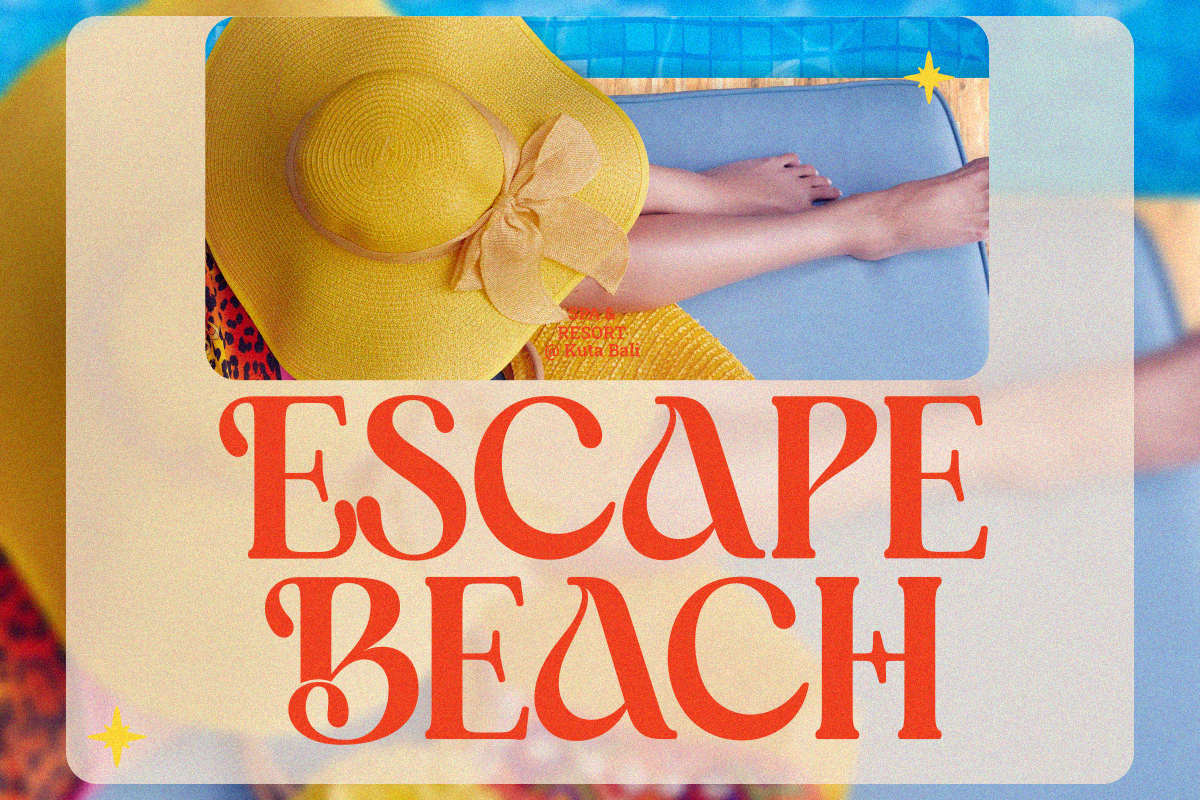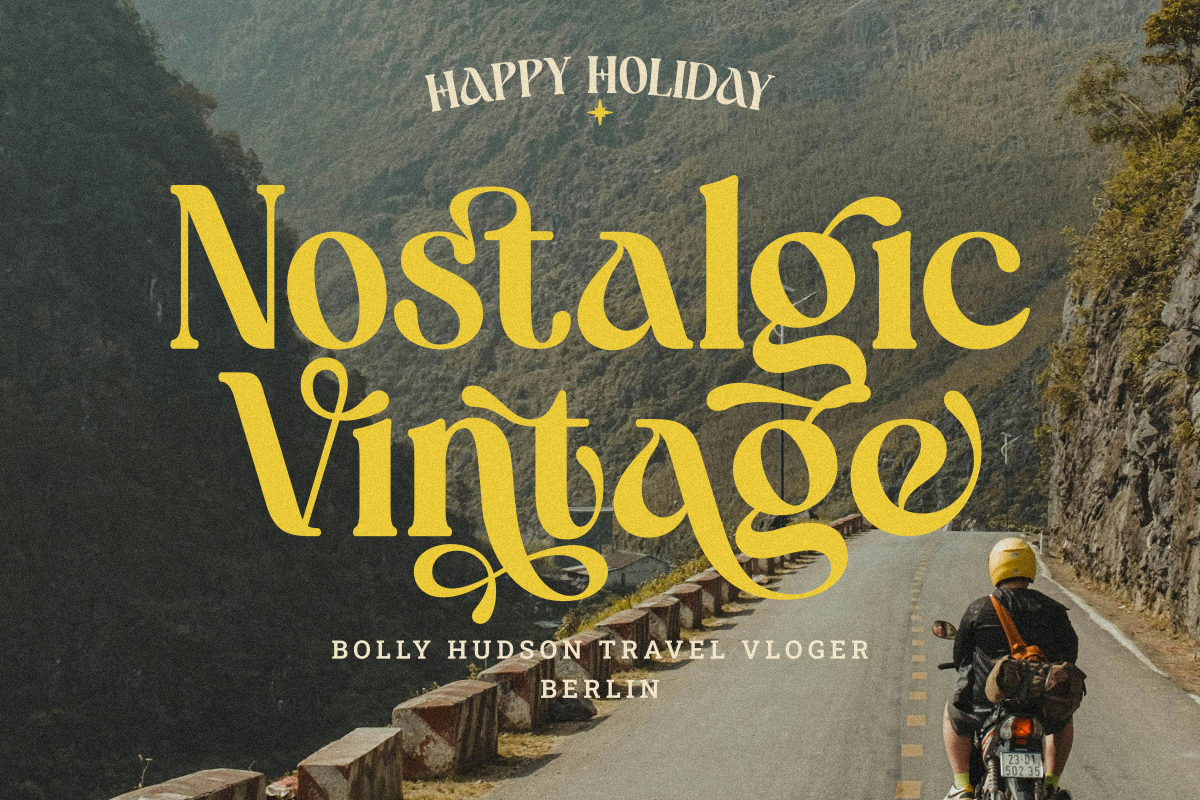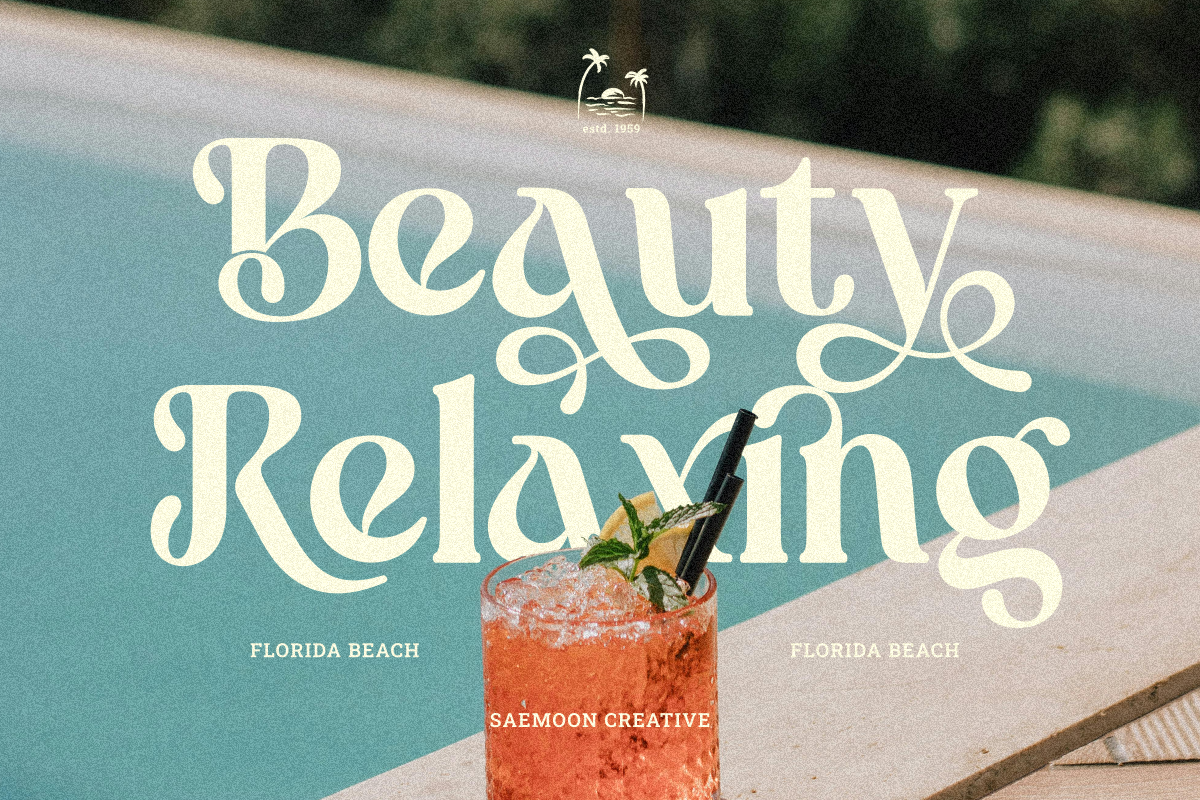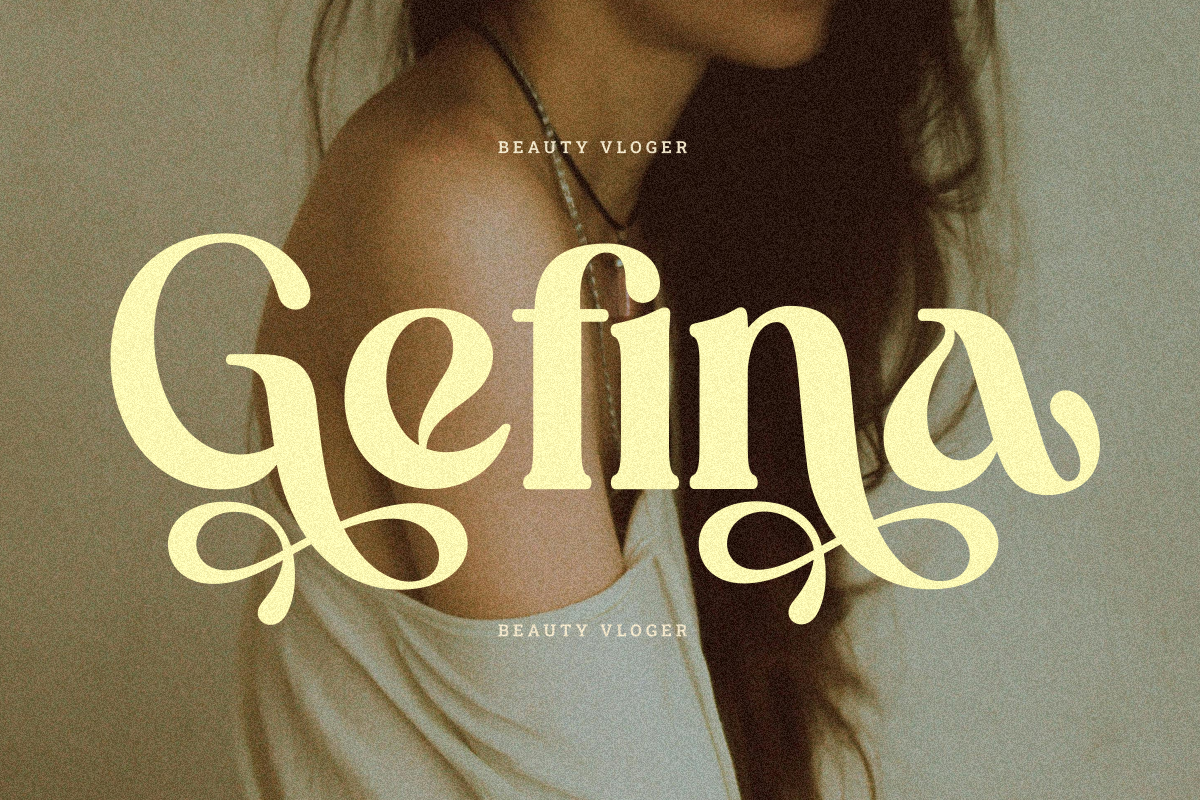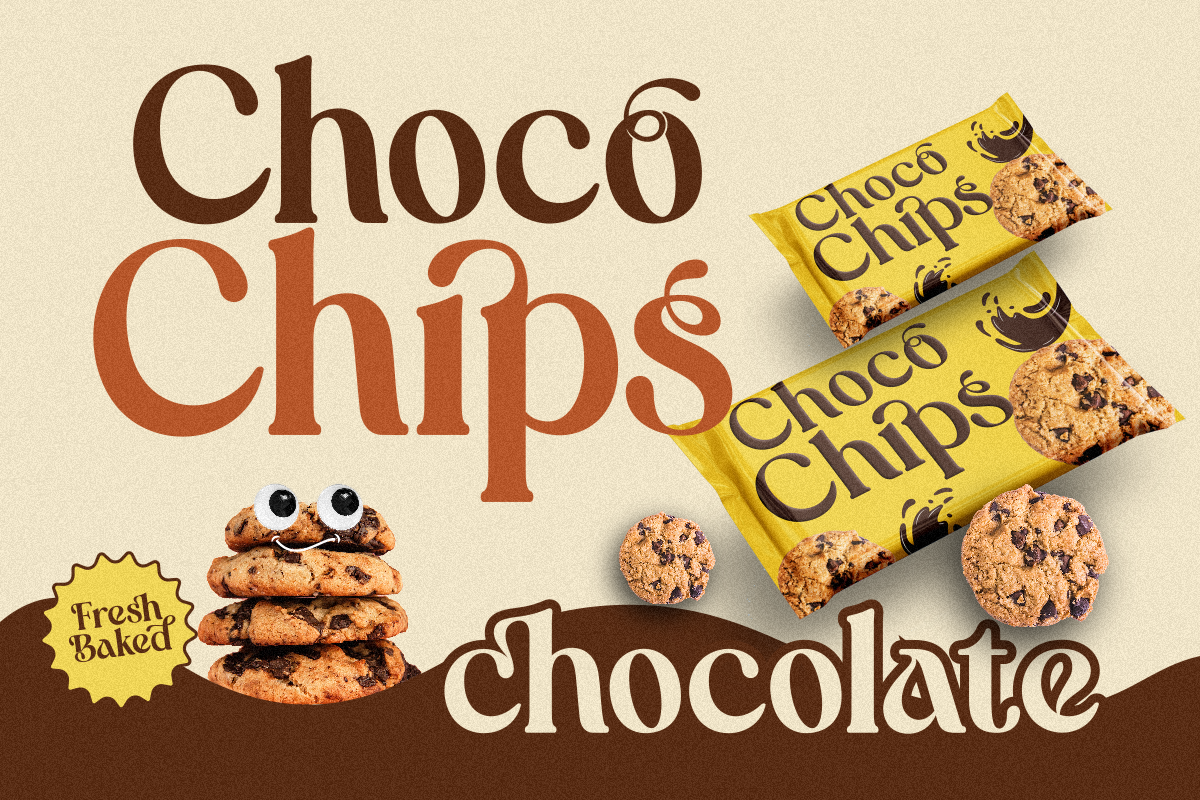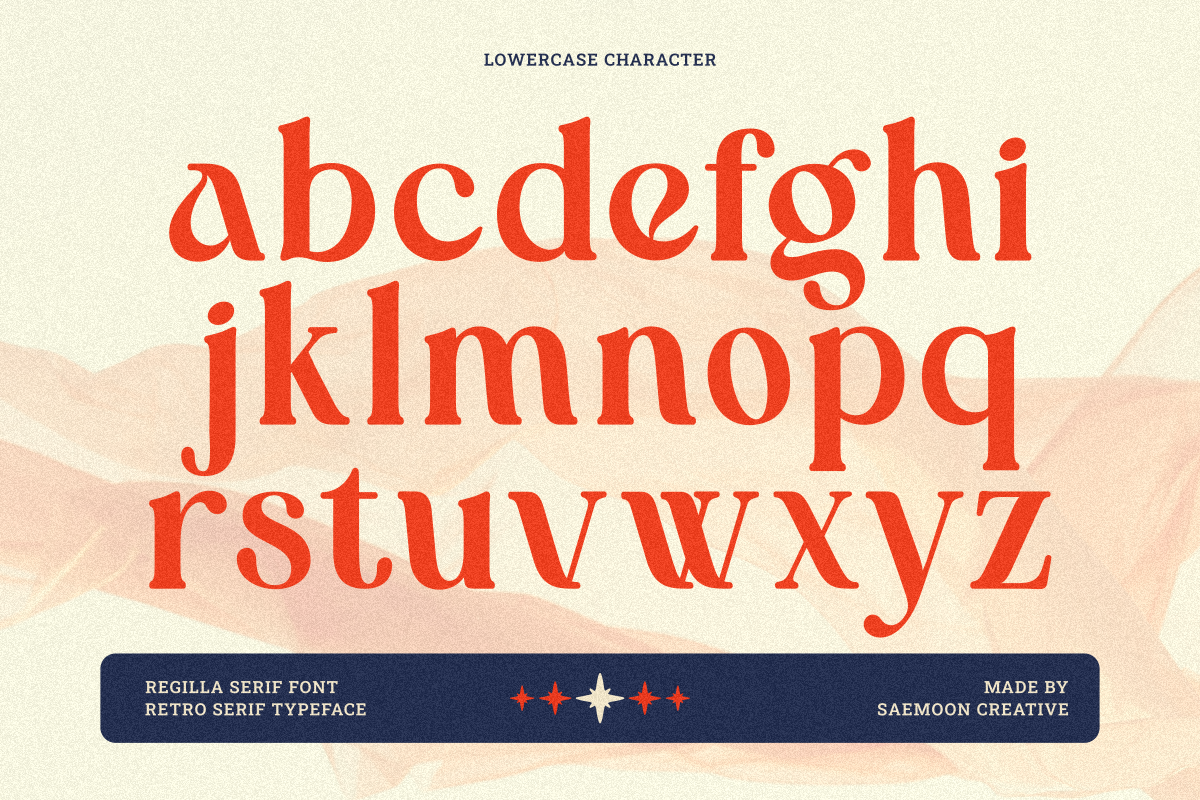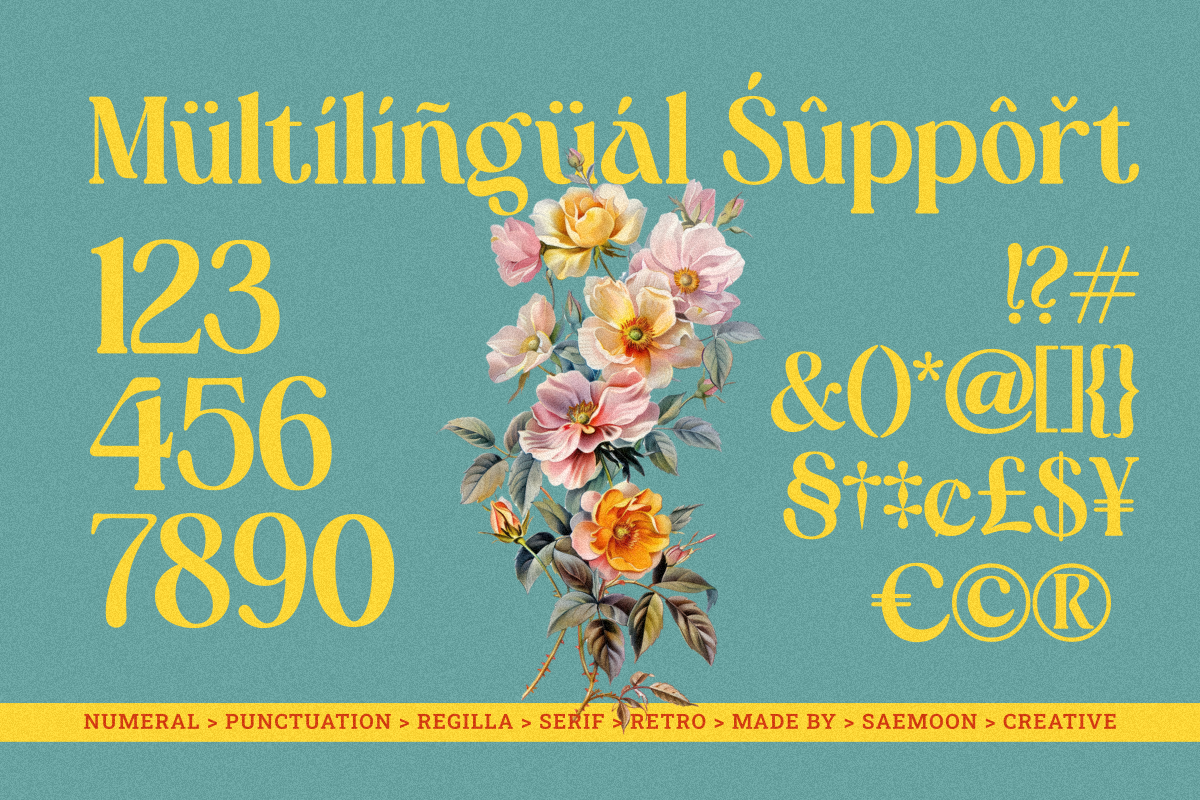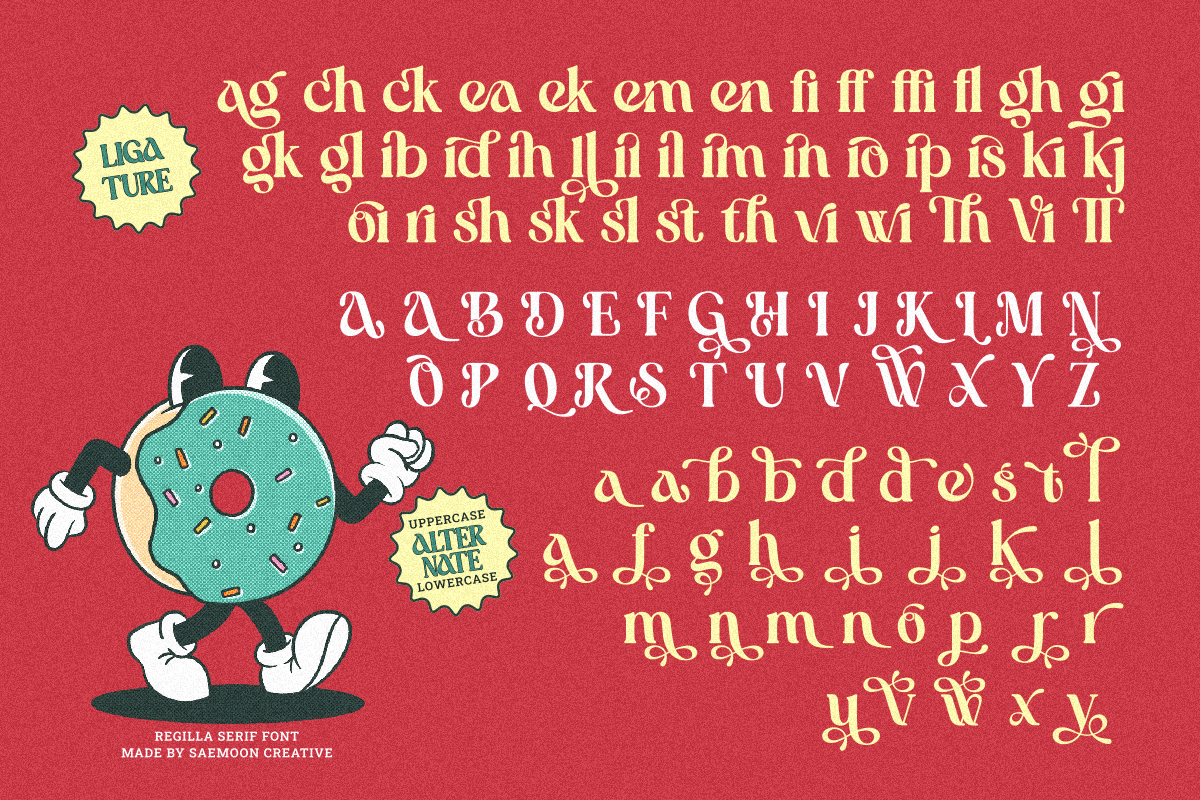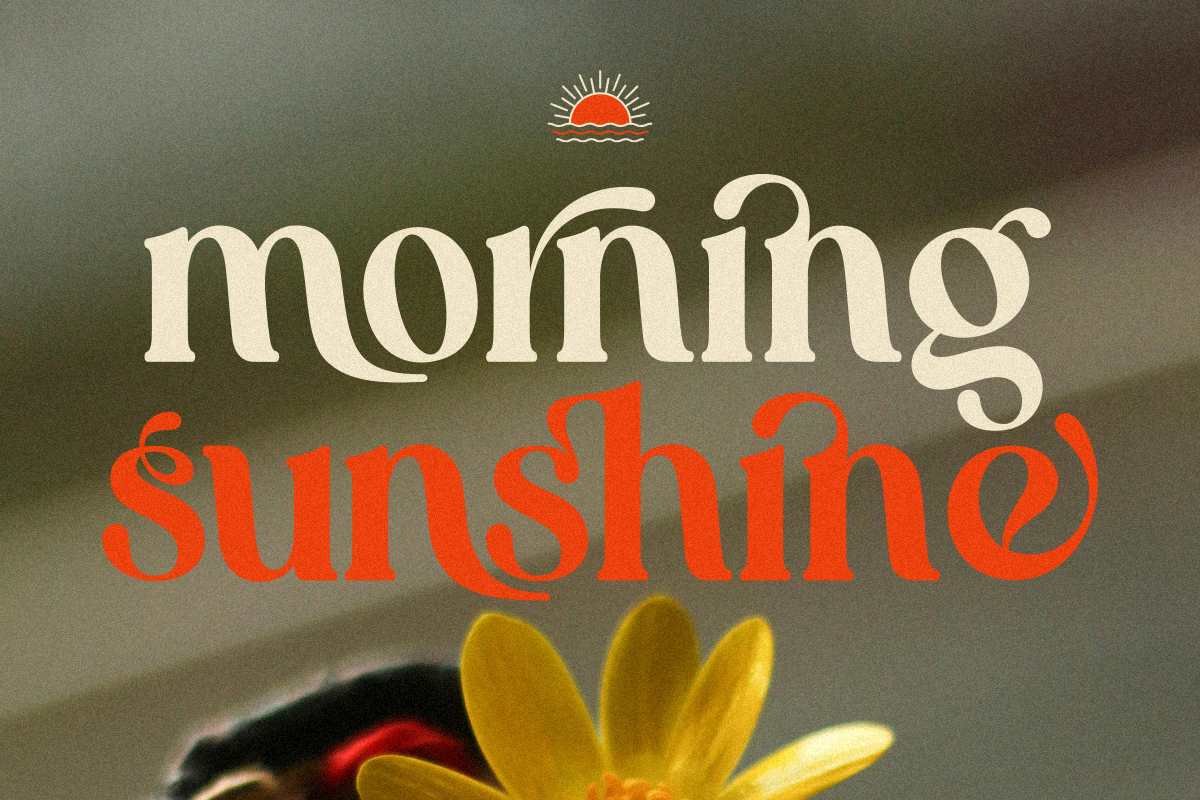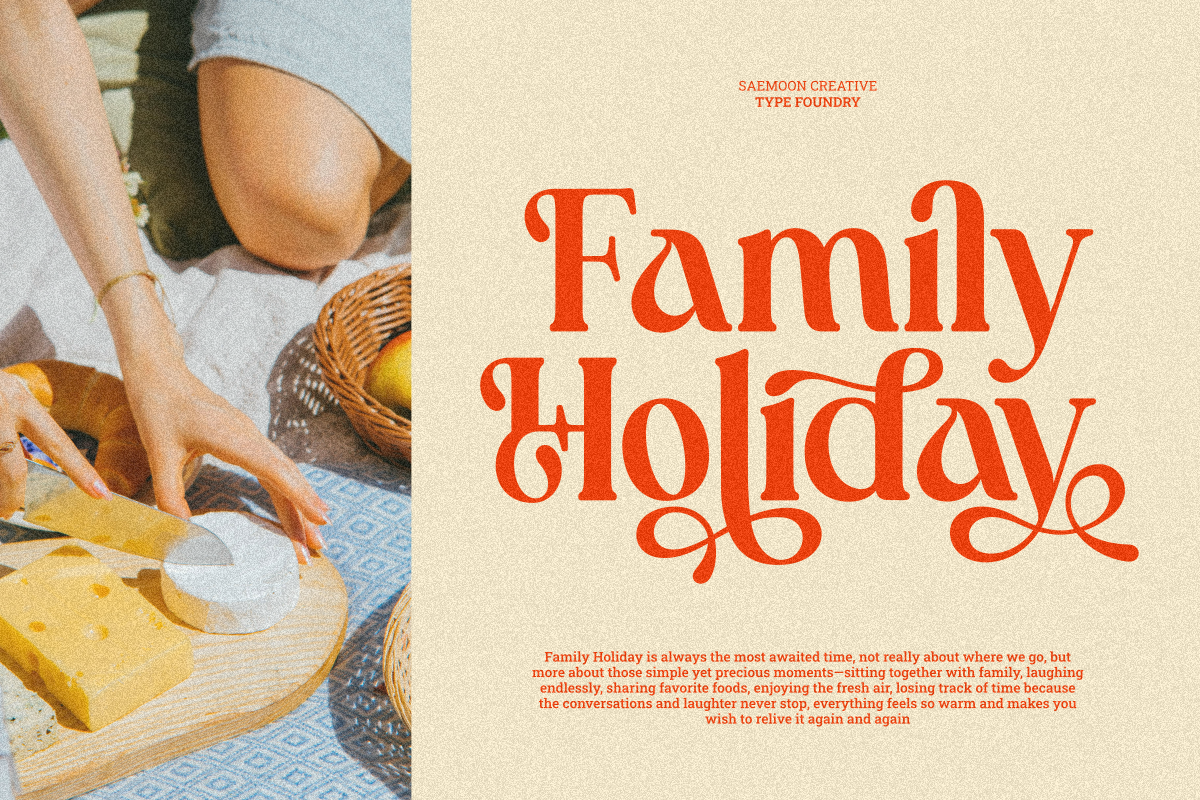
Regilla
Regilla is a retro serif display font that combines vintage charm with a bold, modern twist. Its unique curves and refined details bring a touch of elegance and personality to any design.
This font comes with stylistic alternates, ligatures, giving you plenty of creative options to make your work stand out.
Perfect for posters, branding, logos, packaging, book covers, and editorial designs, Regilla adds a strong visual statement wherever you use it. Whether you want a timeless retro vibe or a fresh contemporary look, Regilla is here to make your project shine.